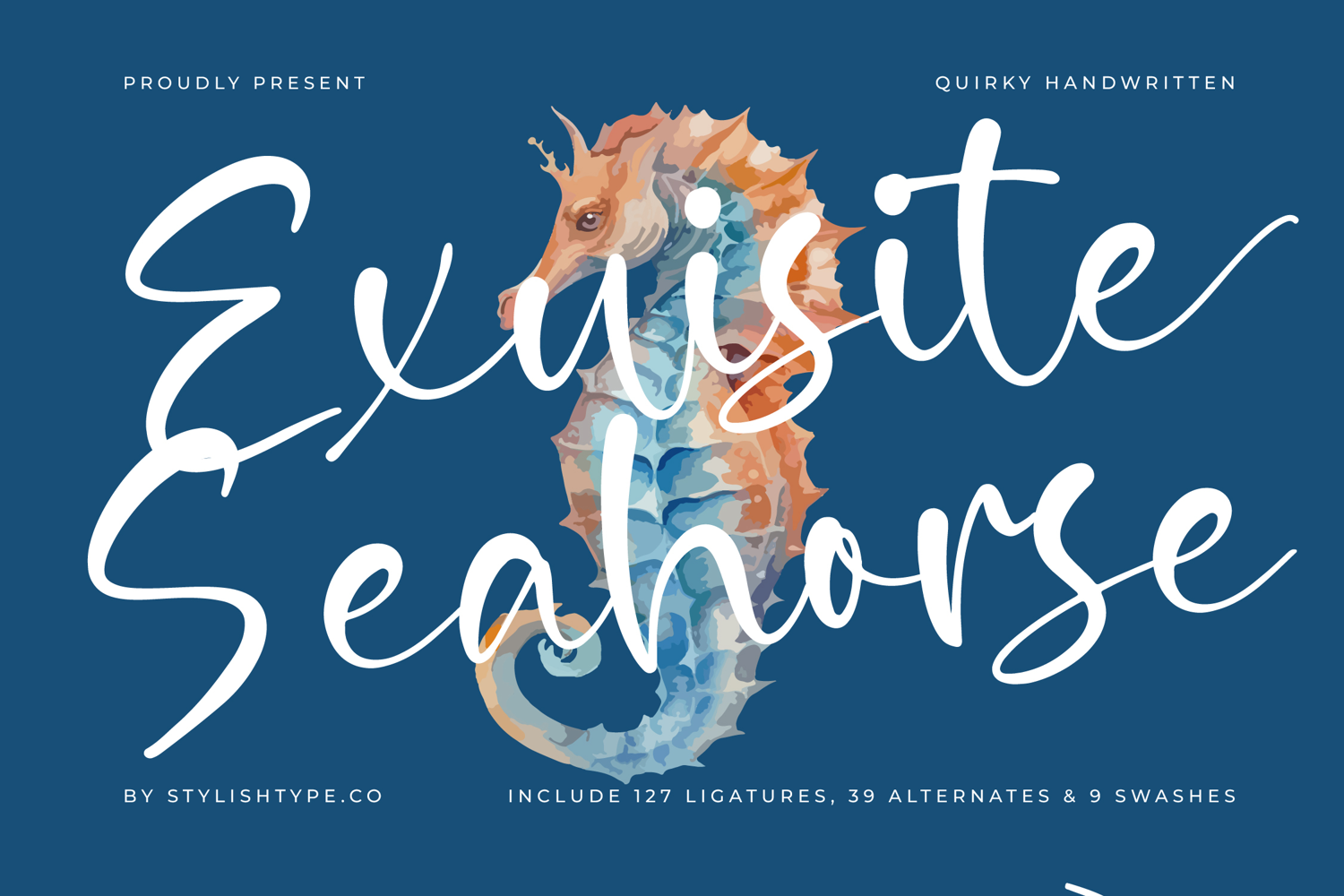
Exuisite Seahorse - Quirky Handwritten
Exuisite Seahorse Italic
Exuisite Seahorse
Exuisite Seahorse - Quirky Handwritten
Exuisite Seahorse - Quirky Handwritten adapts seamlessly across global markets, making it incredibly versatile for international projects. This ensures that your brand’s emotive voice translates consistently, whether used for European packaging or high-impact digital campaigns worldwide. Exuisite Seahorse - Quirky Handwritten offers reliable performance without sacrificing its artistic flair.